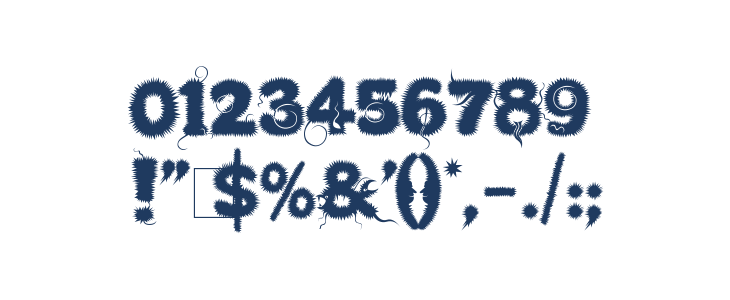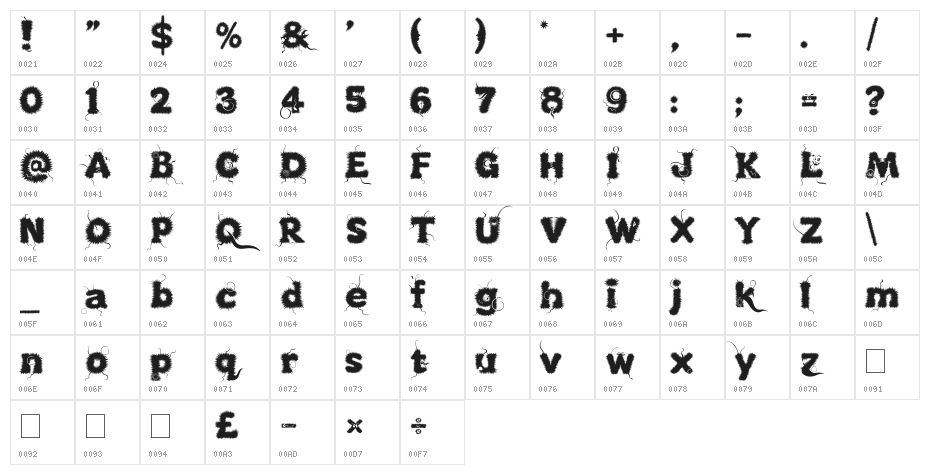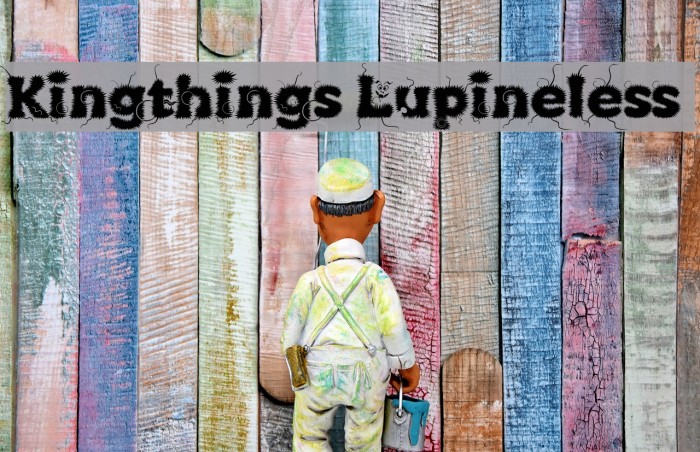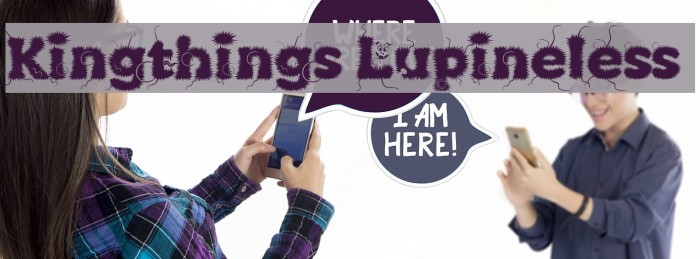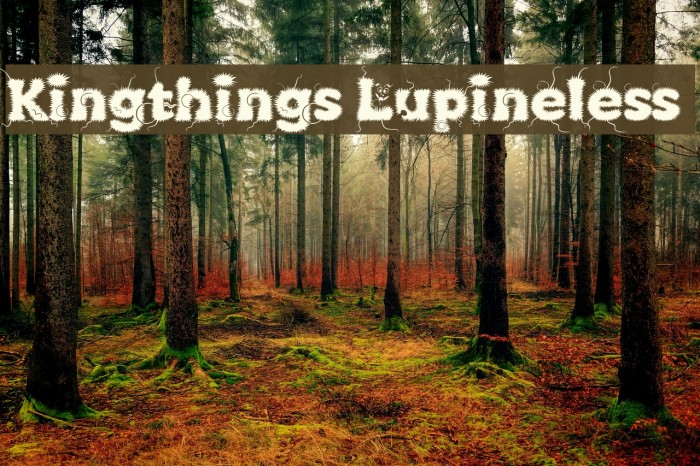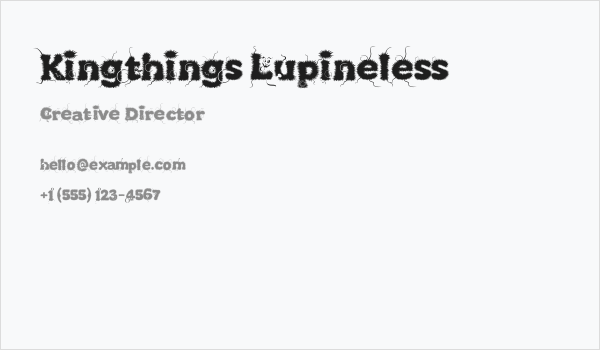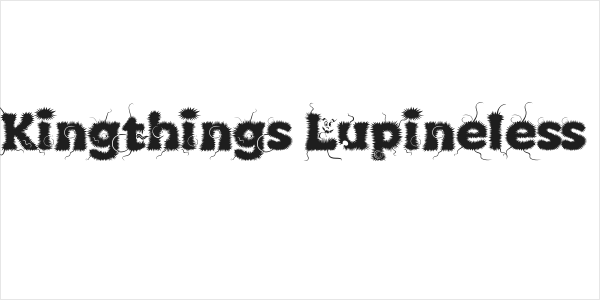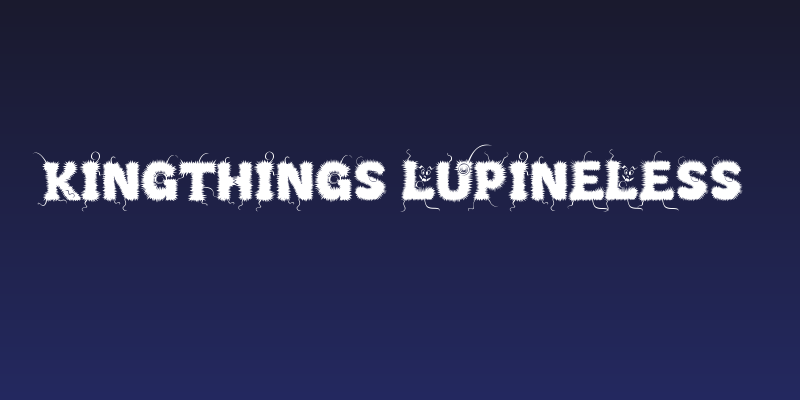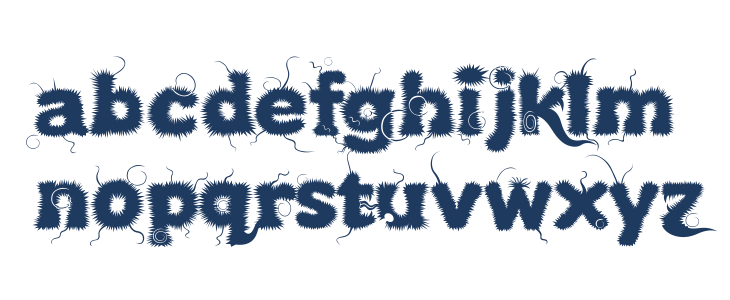
Kingthings Lupineless Font
Kingthings Lupineless Description
This font features a highly decorative and whimsical style, characterized by its unique, fuzzy, and textured appearance. Each character is surrounded by a playful, spiky outline that gives it a lively and dynamic feel. The letters are bold and have a consistent thickness, making them stand out prominently. The font includes both uppercase and lowercase letters, numbers, and a variety of special characters. Its intricate design elements make it suitable for creative and artistic projects where a fun and eye-catching typeface is desired.
Proposed ProjectsIdeal for Halloween-themed designs, children's book covers, playful posters, and creative branding.